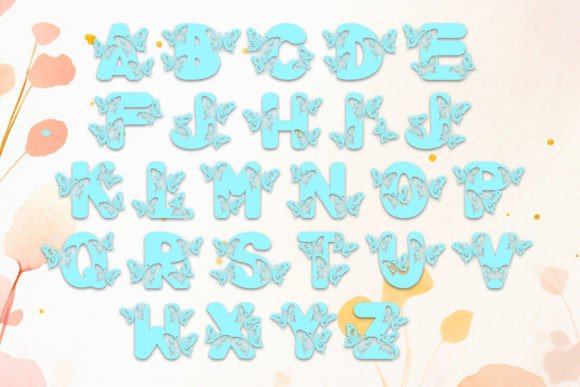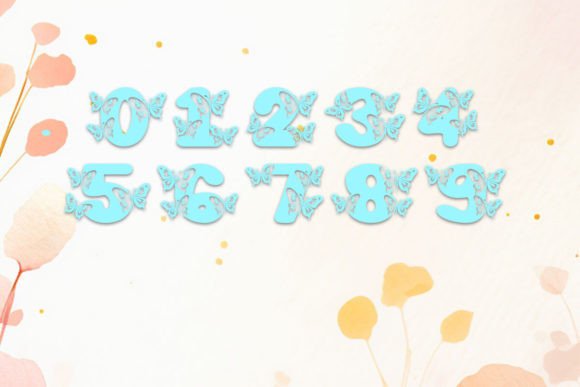
Introduction to Butterfly Dream Font
Introducing Butterfly Dream Fonts – a captivating collection featuring uppercase letters from A to Z and numbers 0 to 9.
Introducing Butterfly Dream Fonts – a captivating collection featuring uppercase letters from A to Z and numbers 0 to 9. This font set beautifully combines intricate lettering with delicate butterfly
Key Features of Butterfly Dream Font
Why Choose Butterfly Dream Font?
Butterfly Dream Font offers exceptional quality and versatility, making it a valuable addition to your design toolkit. Whether you’re creating for personal projects or commercial use, Butterfly Dream Font delivers professional results.